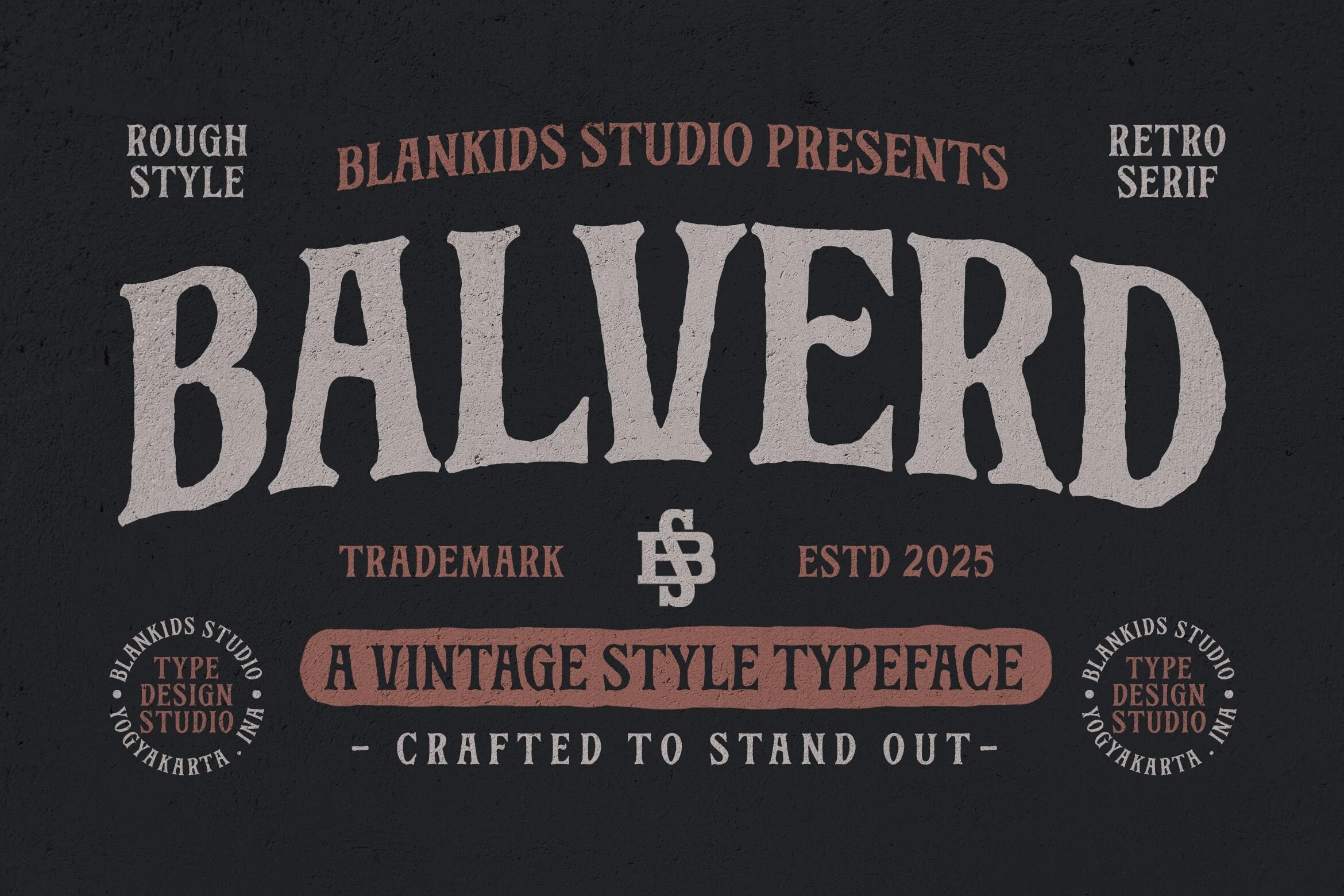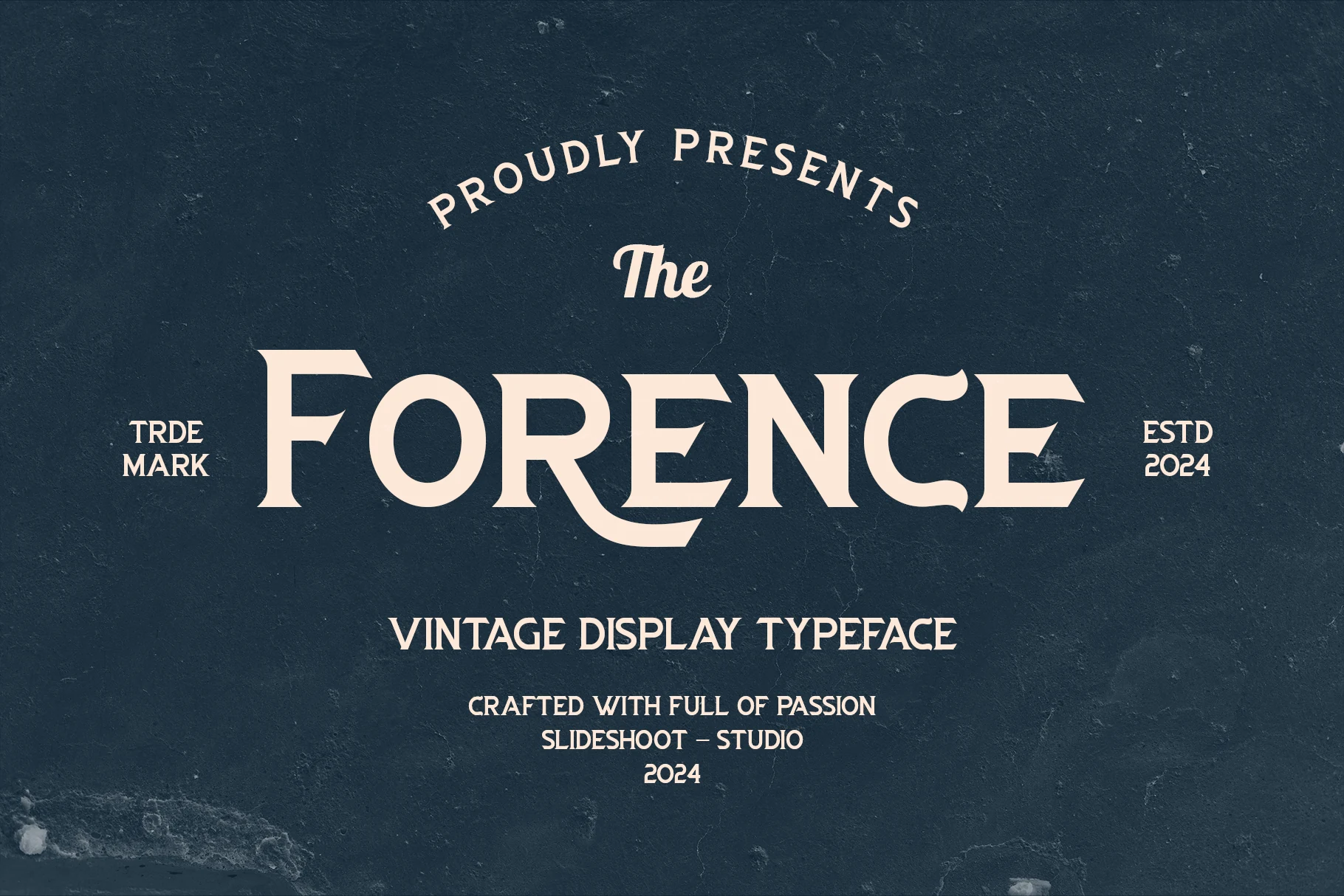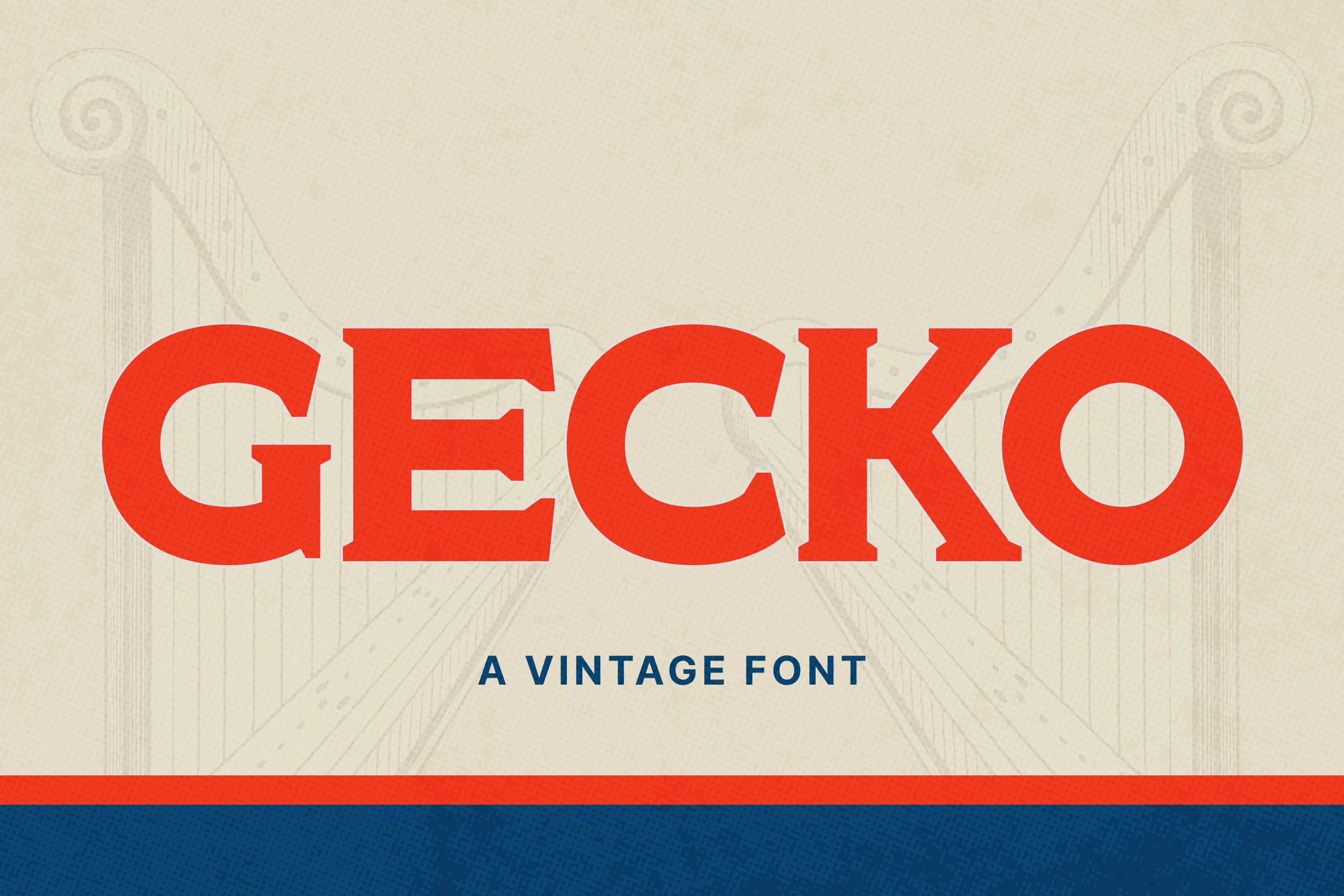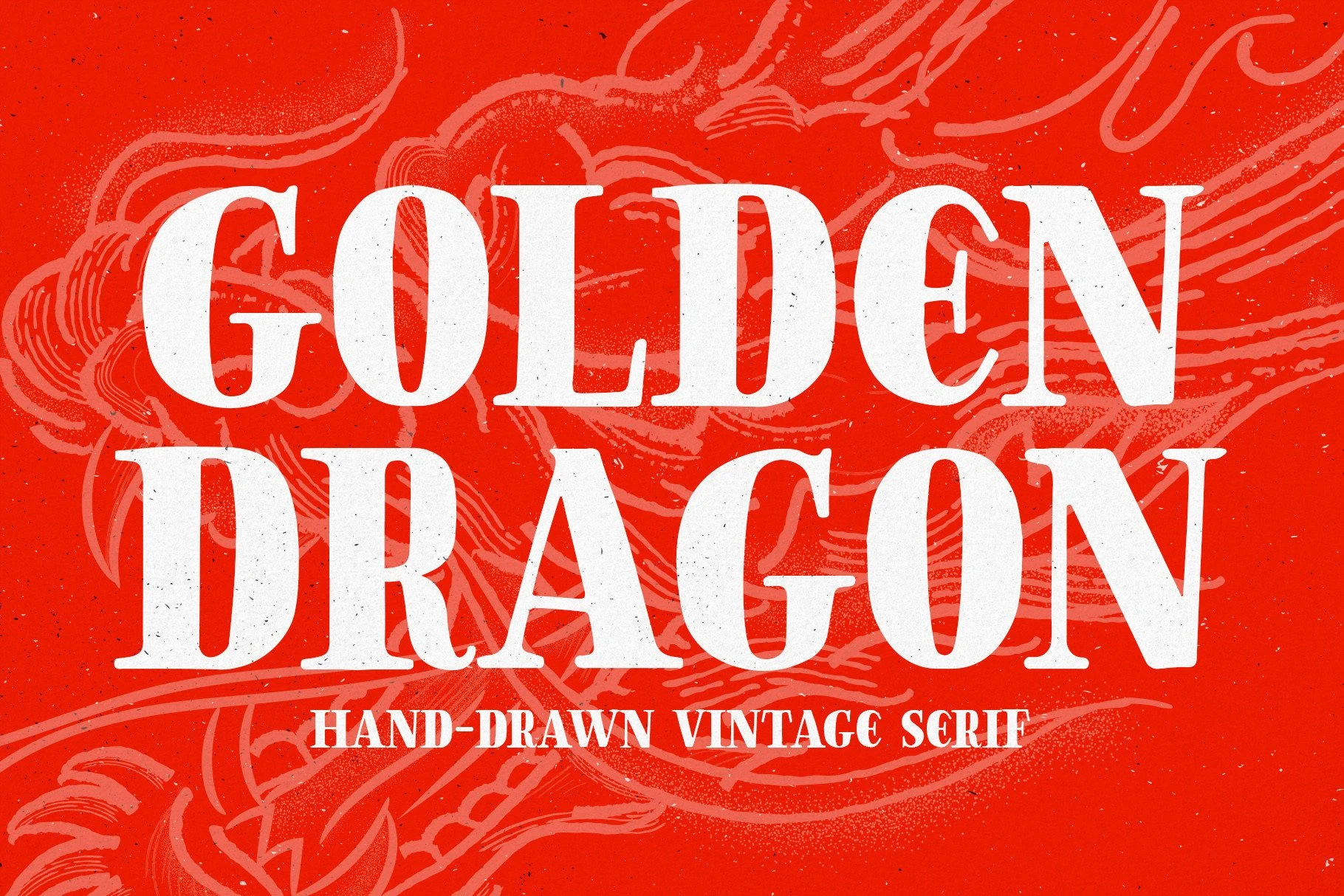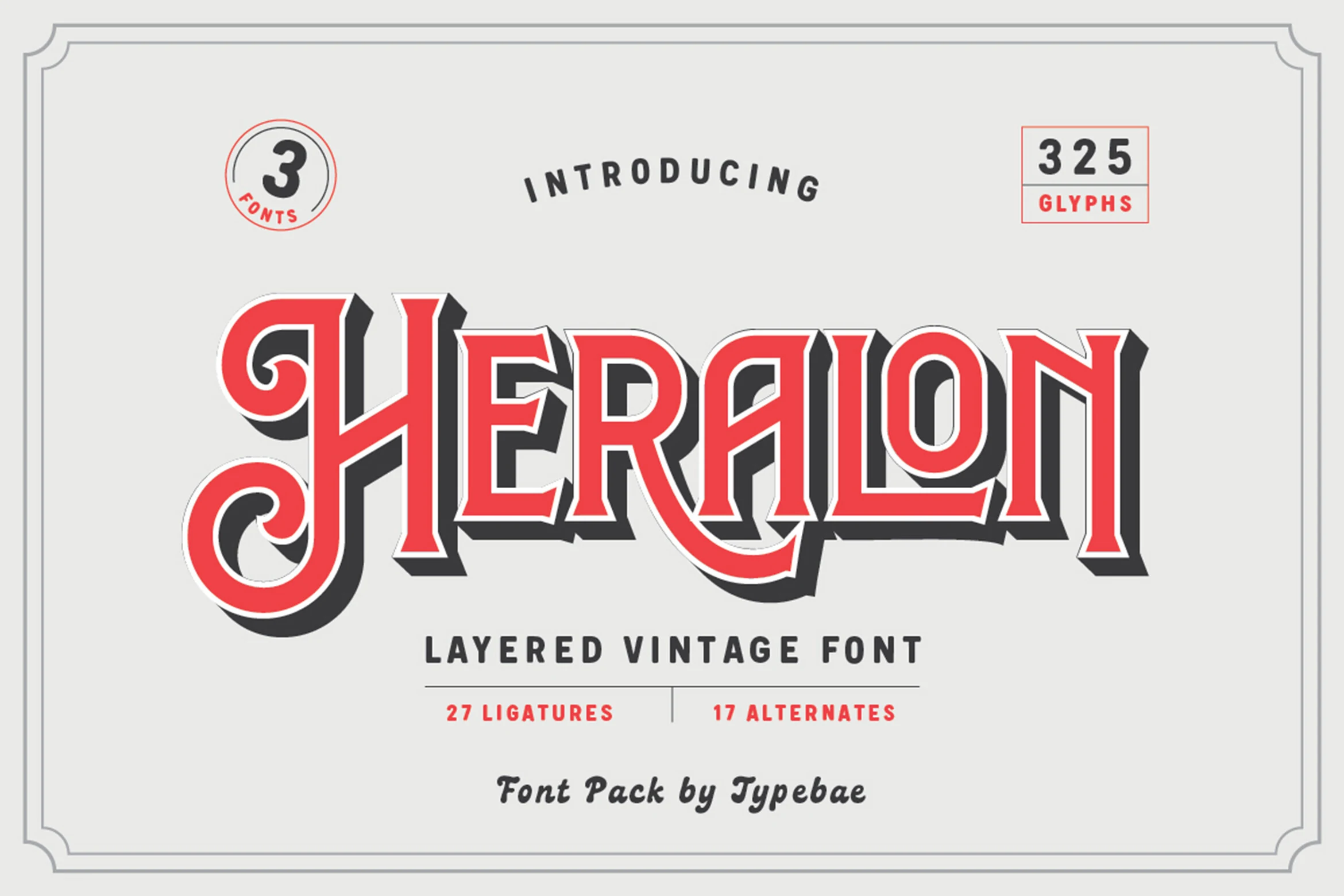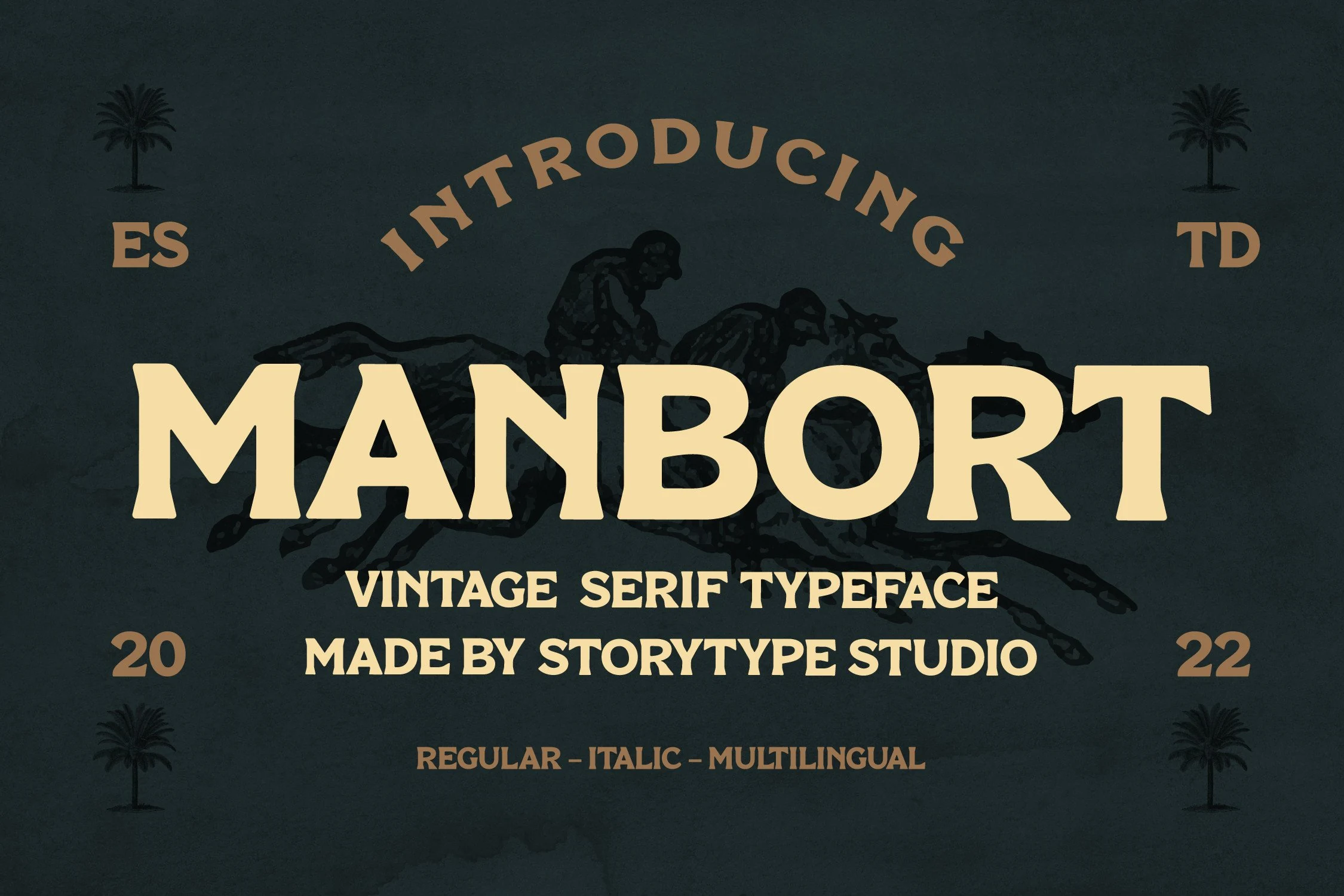
Cover image for 23 Stunning Vintage Serif Fonts for Retro Designs in 2026, showing font previews from the article in a vintage serif style.
23 Stunning Vintage Serif Fonts for Retro Designs in 2026
Vintage Serif Fonts bring old-print character, retro curves, and aged display energy to branding, packaging, posters, badges, and editorial titles. This collection is built for designers who need serif type with stronger period style than a clean modern serif.
Elegant & Editorial Vintage Serif Fonts
These refined vintage serif fonts use high contrast, tall proportions, and polished curves for editorial titles, boutique branding, luxury labels, and elegant wordmarks.
Retro Dream Font
Retro Dream Font preview with tall orange vintage serif lettering for editorial design
Retro Dream Font has a tall, refined serif structure with clean contrast, narrow proportions, and a polished rhythm that feels rooted in classic print. The letterforms look airy rather than heavy, which gives Vintage Serif Fonts a more graceful editorial tone instead of a rugged antique feel.
It shines in titles, branding, and packaging where a few well-spaced words can carry the composition. Give it room between lines and pair it with a quiet secondary sans or light serif, so its long verticals and elegant curves stay crisp and intentional.
Mayqueen Font
Mayqueen Font preview with elegant green vintage serif lettering and a swashed Q
Mayqueen Font balances classical restraint with a graceful display presence. Its high-contrast strokes, tapered serifs, and sweeping Q tail give the letters a cultured rhythm that feels polished rather than ornate. For Vintage Serif Fonts, it offers a stately look that still reads cleanly in large headings.
It is especially effective when you want a refined title or wordmark to carry the layout, from editorial covers to boutique branding. Pair it with generous spacing and understated secondary text so the sharp serifs and elongated curves stay elegant instead of crowded.
Cantero Font
Cantero Font preview with gold high-contrast vintage serif lettering
Cantero Font has a cultivated vintage serif voice, with wide-set capitals, high contrast, and wedge-like terminals that create a stately rhythm. The C and O stay broad and open while the A, N, and T feel sharply cut, giving Vintage Serif Fonts a refined historical-print mood without adding rough texture.
Use it for wordmarks, editorial titles, gallery-style branding, and packaging where one line needs to feel deliberate. Keep tracking modest and contrast high; the long horizontal strokes and carved curves work best when the supporting typography stays restrained.
Eagles Font
Eagles Font orange high-contrast vintage serif lettering with tall sharp forms
Eagles Font reads as a tall, high-contrast serif with narrow proportions, sharp triangular terminals, and long vertical strokes that create a polished vintage mood. The letterforms are detailed without becoming fussy, giving short words a firm editorial presence.
Use it where Vintage Serif Fonts need an old-fashioned tone with a cleaner fashion-led finish. It works strongest in logos, magazine-style headers, packaging titles, and poster layouts; keep the surrounding type restrained so the sharp contrast and vertical rhythm carry the hierarchy.
Parandea Font
Parandea Font warm brown vintage serif lettering with rounded heavy forms
Parandea Font has a broad vintage serif shape with tall upright stems, rounded counters, and soft slab-like terminals. Its curves are graceful rather than ornate, giving the wordmark a nostalgic structure while keeping the overall impression clean and composed.
Parandea fits Vintage Serif Fonts for branding that needs warmth without rough texture. Keep the main name large and fairly tight, then use lighter supporting text with wider spacing; this contrast lets the heavy serif forms anchor packaging, beauty labels, and refined logo layouts.
Bold Retro Vintage Serif Fonts
These bold retro serif fonts favor rounded forms, broad caps, and strong display rhythm, making them useful for logos, packaging names, social graphics, and punchy poster titles.
Gecko Font
Gecko Font preview with bold retro serif lettering in bright red-orange
Gecko Font has a bold retro presence built from broad serif forms, soft curves, and a steady, balanced weight. The capitals feel friendly rather than formal, with chunky shapes that echo 70s print design without slipping into novelty. If you like Vintage Serif Fonts with warmth and clarity, Gecko lands in a very usable middle ground.
It works especially well for short titles, logos, and packaging where a strong single word needs to carry the design. Keep the tracking fairly controlled and pair it with a simpler secondary face, so Gecko’s wide proportions and rounded serifs stay punchy instead of overwhelming the composition.
Conclusion
Choose refined vintage serif fonts for editorial and luxury layouts, bold retro serifs for posters and packaging, western styles for rugged signage, and textured serifs when the design needs an aged printed finish.